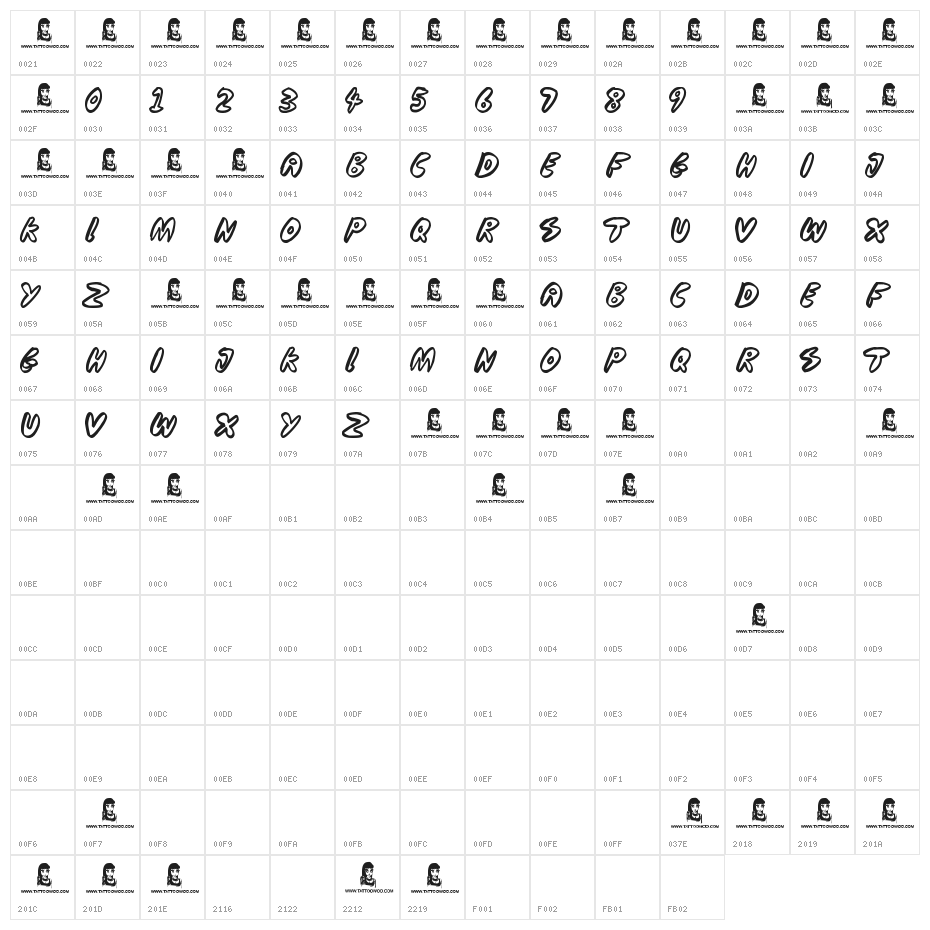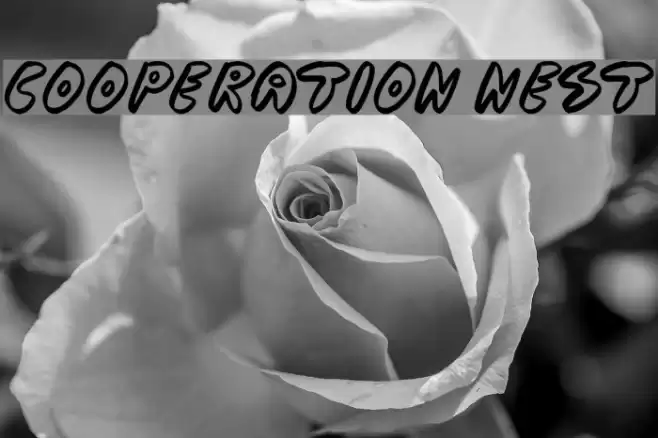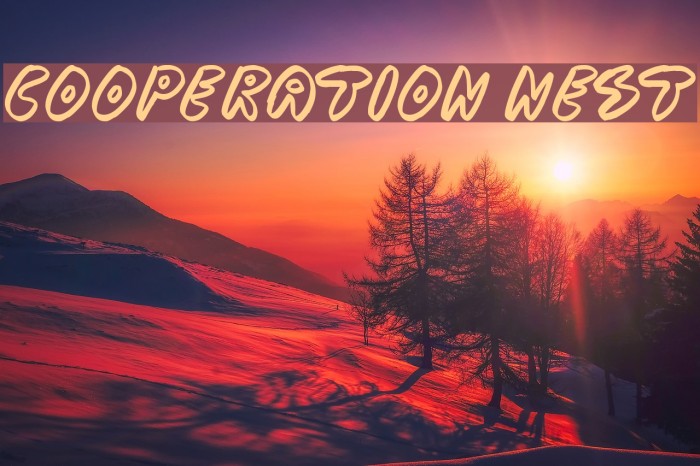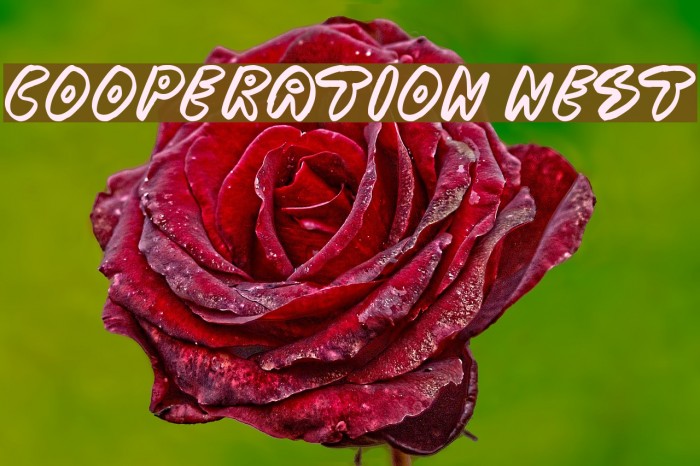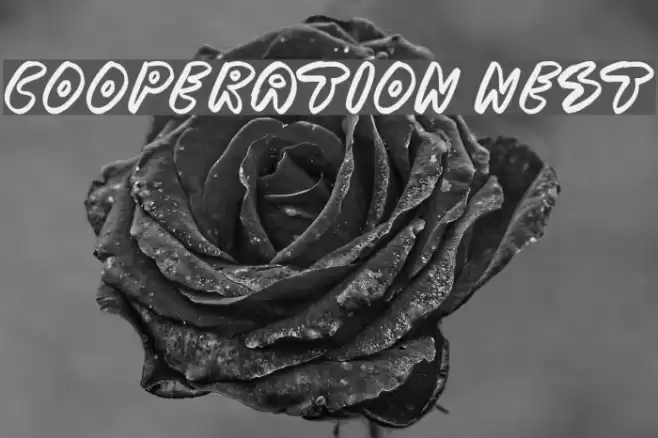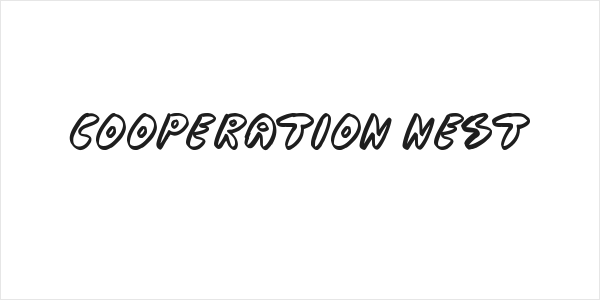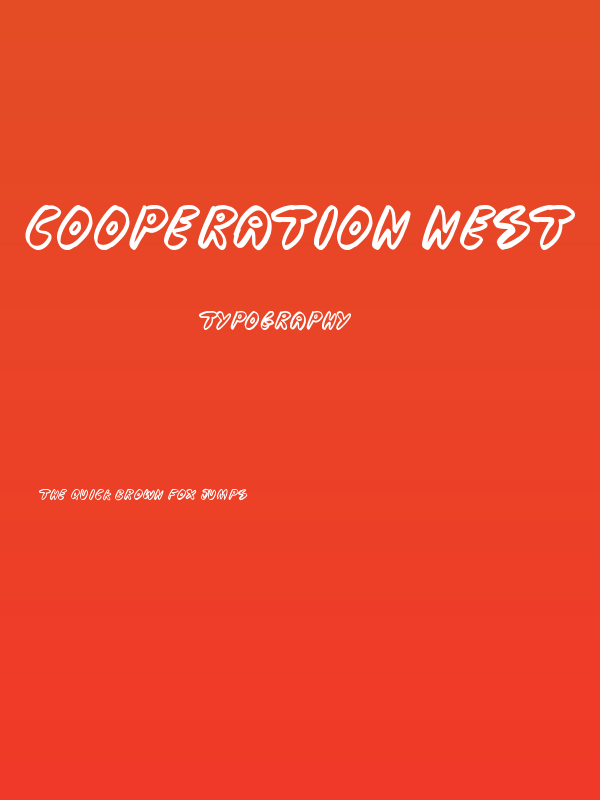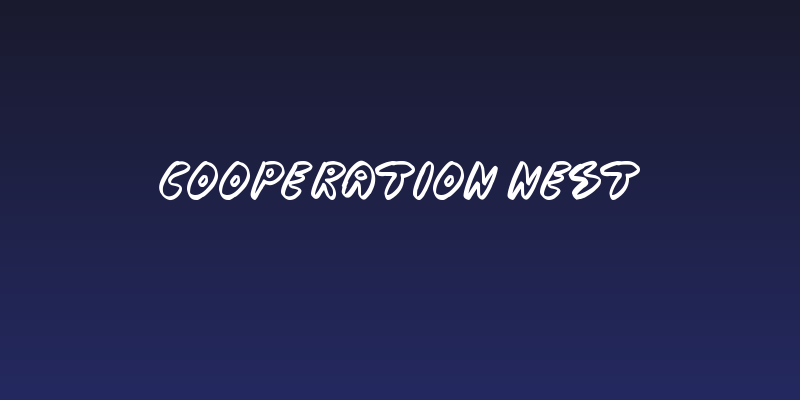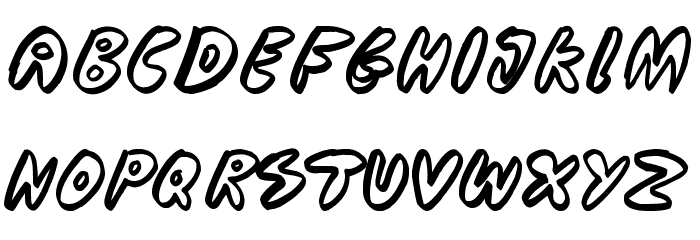
Cooperation Nest Font
Cooperation Nest Description
This font features a bold, playful style with a handwritten appearance. The characters are rounded and slightly slanted, giving them a dynamic and energetic feel. The strokes are thick and consistent, providing a strong visual impact. The letters are closely spaced, enhancing the cohesive look of the text. This font is ideal for projects that require a fun and informal touch, such as children's books, playful branding, or casual event invitations. Its unique style makes it stand out, while still maintaining legibility.
| Use Case | Logos, Headlines |
| Proposed Projects | Children's books, playful branding, casual event invitations. |